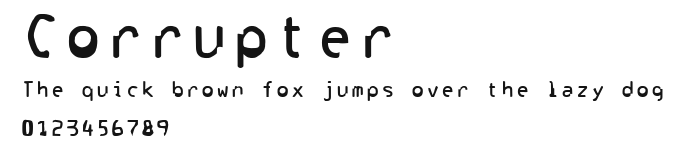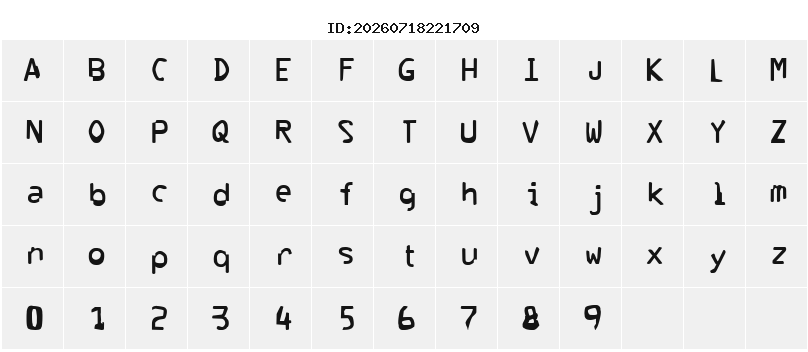
Corrupter Preview
About Corrupter.ttf
Corrupter.ttf is a modern, elegant sans-serif font designed for ultimate readability and visual harmony. Perfect for branding, headlines, web design, and print materials.